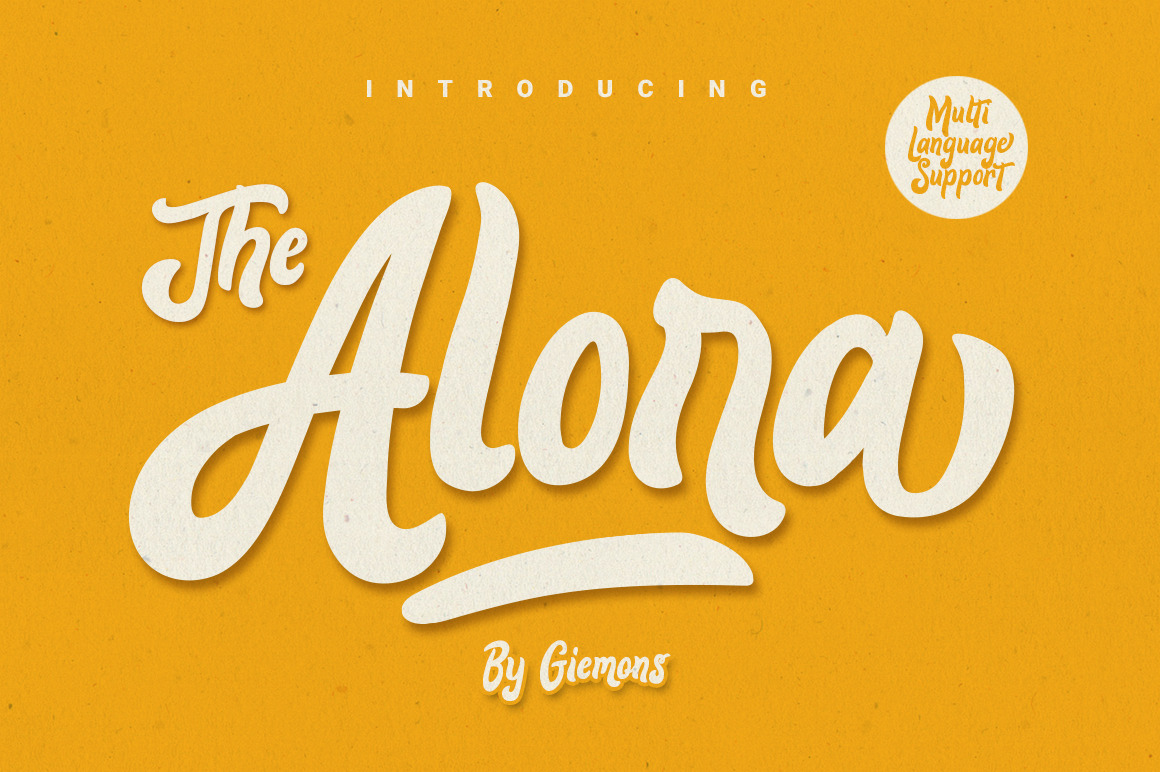
Alora Typeface
a Alora Typeface is unique font and also has beautiful display font. Can make it easier to convey the message in your design. Use for awesome display, labeling, clothing, movie sceen, poster, movie title, gigs, album covers, logos, and much more.
- Uppercases & Lowercases
- Stylistic alternates
- Multilanguage